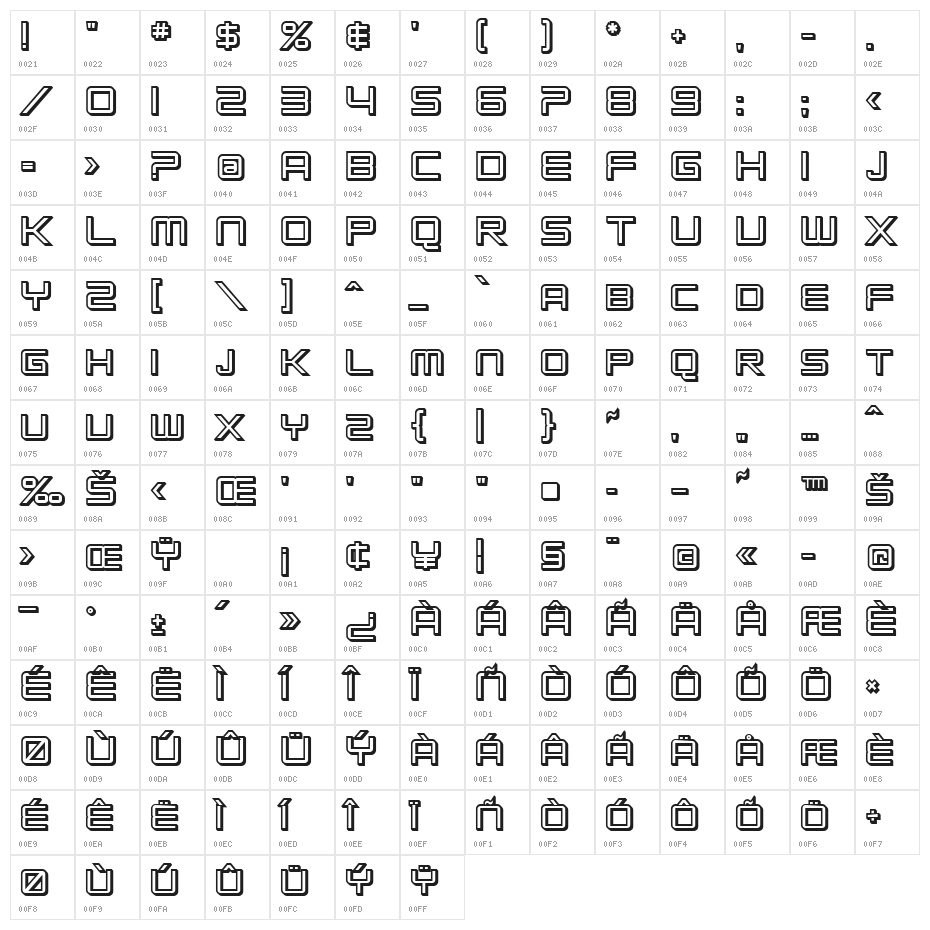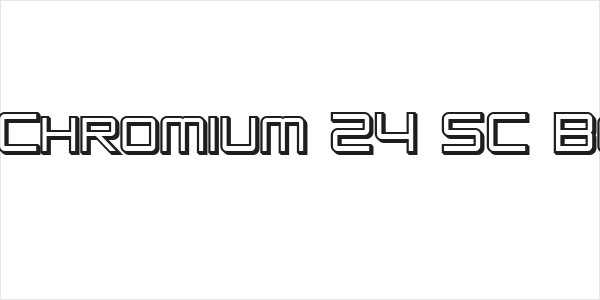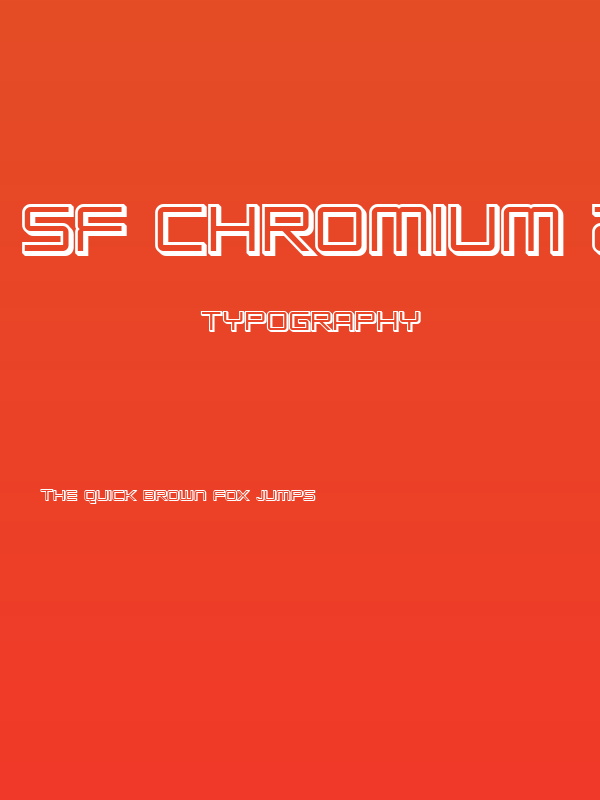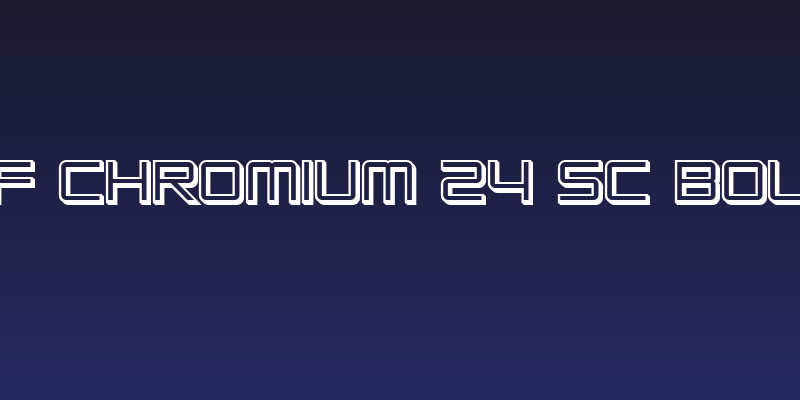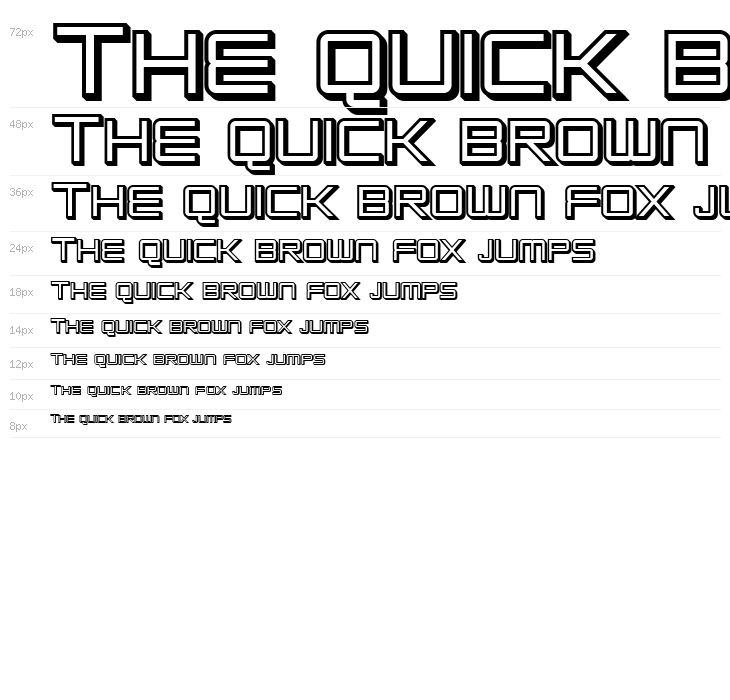
SF Chromium 24 SC Bold Font
SF Chromium 24 SC Bold Description
This font features a bold, futuristic design with a strong geometric structure. The characters are outlined, creating a hollow effect that adds depth and dimension. The uppercase letters are uniform in height, with sharp angles and clean lines that give a modern, industrial feel. The numerals and special characters maintain this aesthetic, ensuring consistency across all glyphs. The font's style is reminiscent of digital or sci-fi themes, making it suitable for projects that require a contemporary and edgy look.
| Proposed Projects | Ideal for tech-related branding, sci-fi movie posters, video game titles, and modern digital interfaces. |